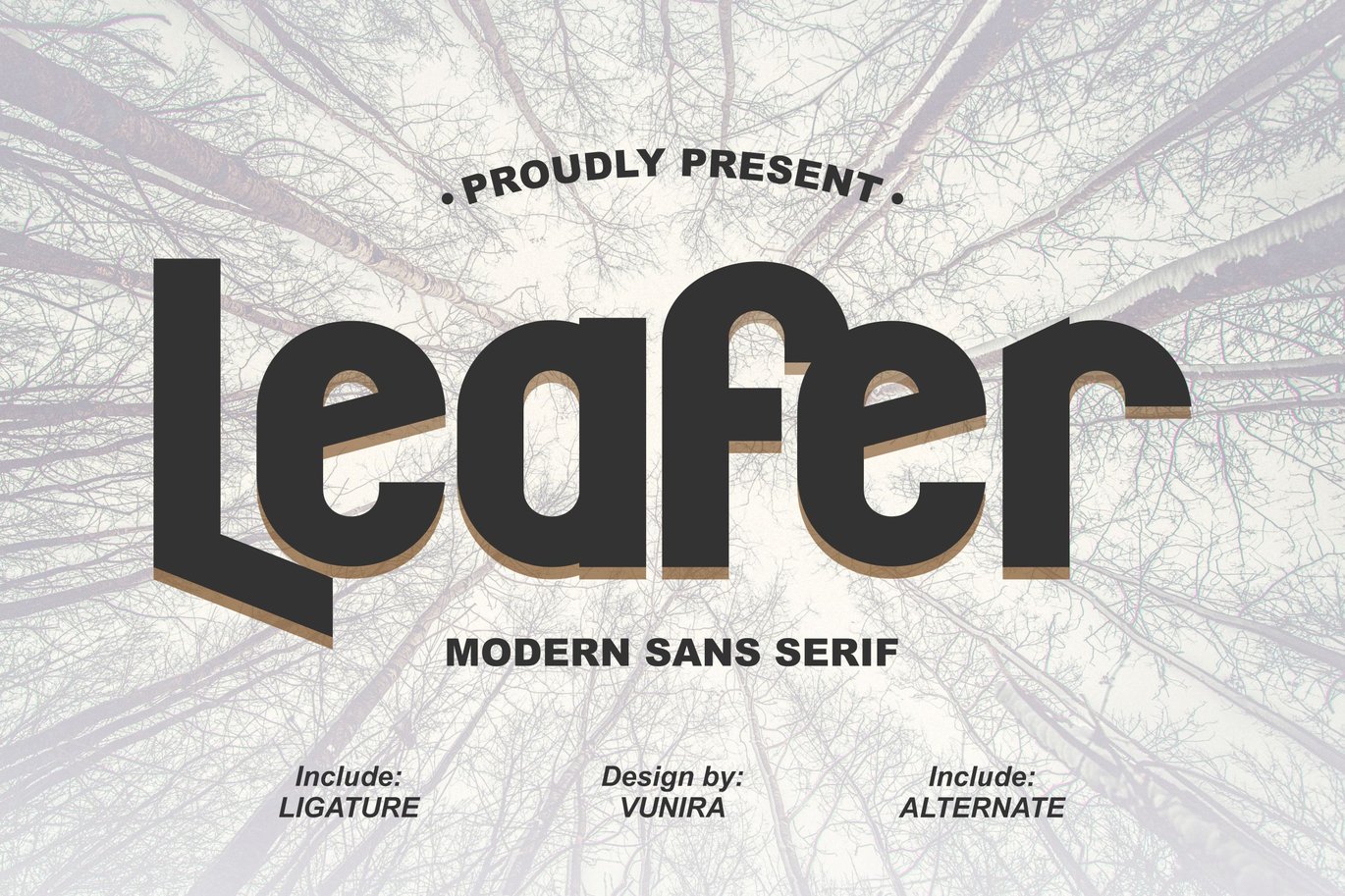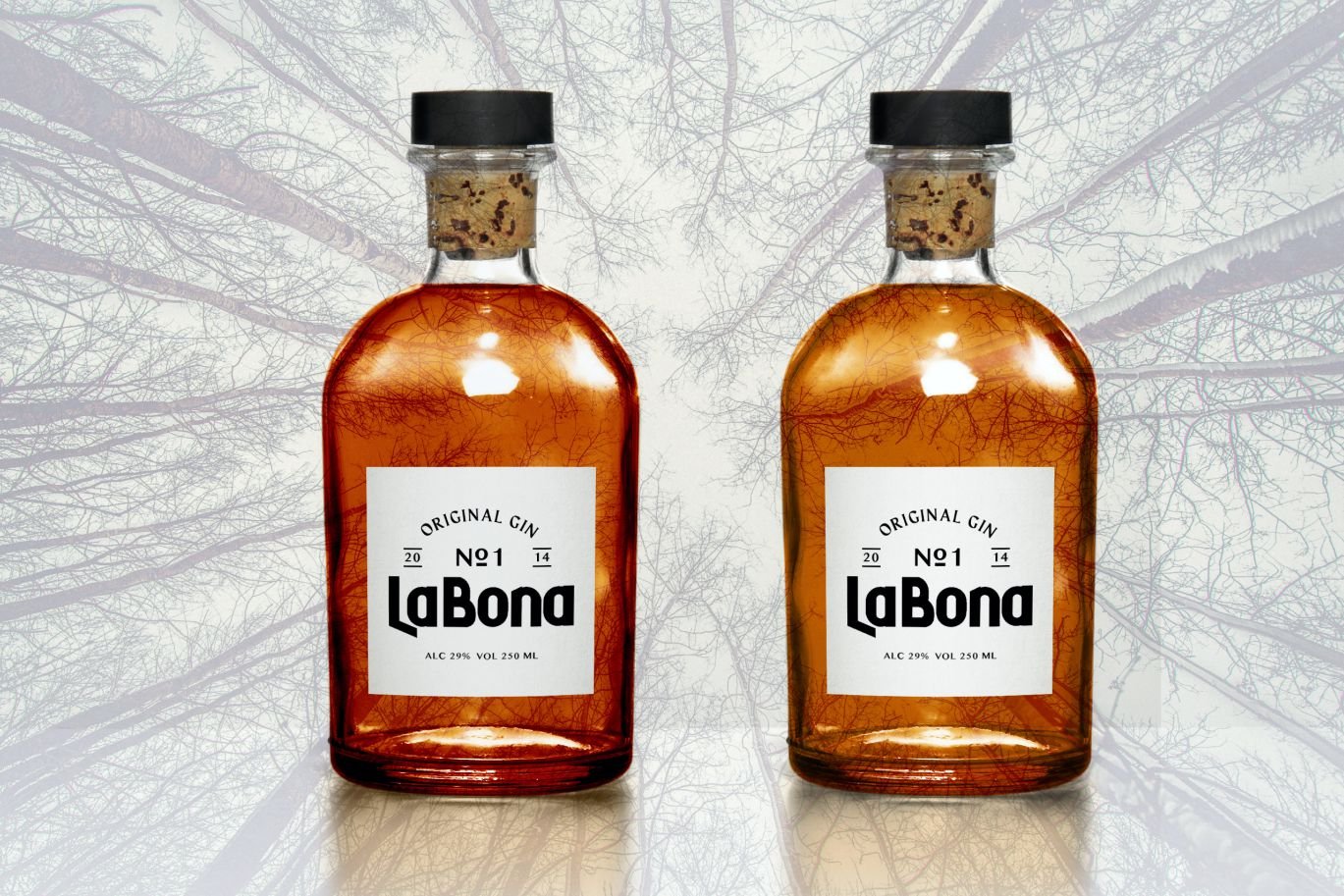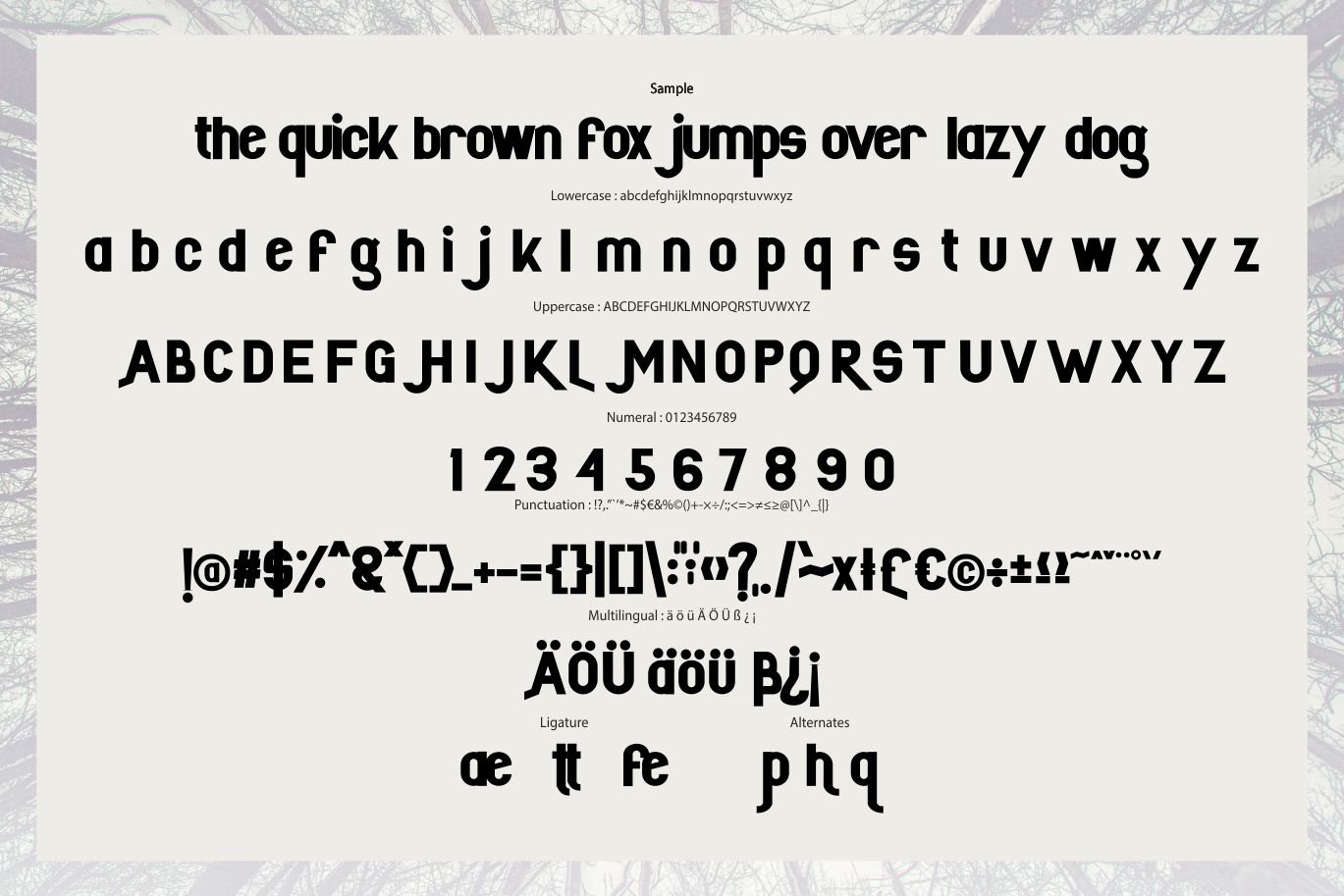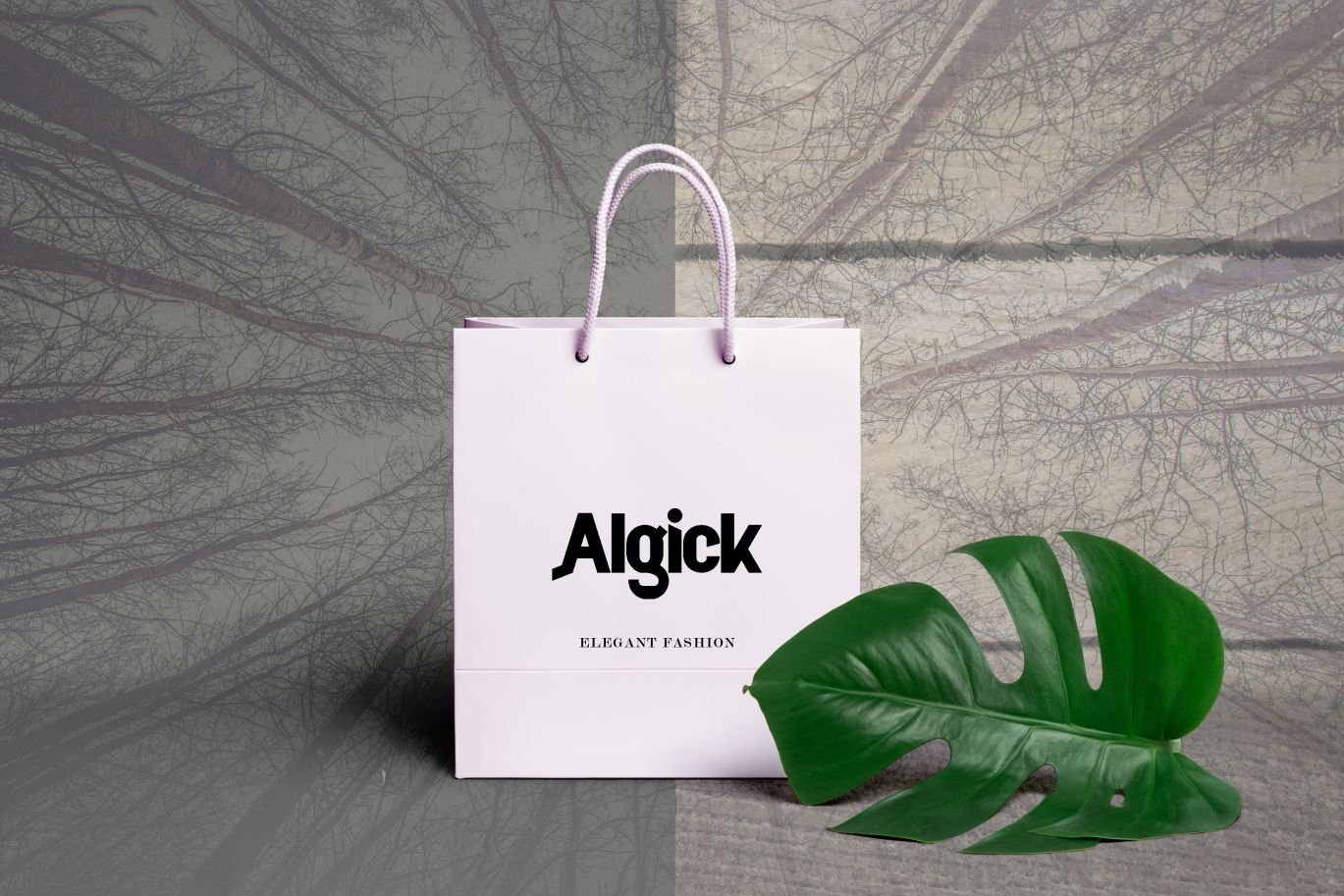
Leafer | Modern Sans Serif Font
Leafer | Modern Sans Serif Font with a calligraphy style, So beautiful on invitation like greeting cards, branding materials, business cards, quotes, posters, and more!